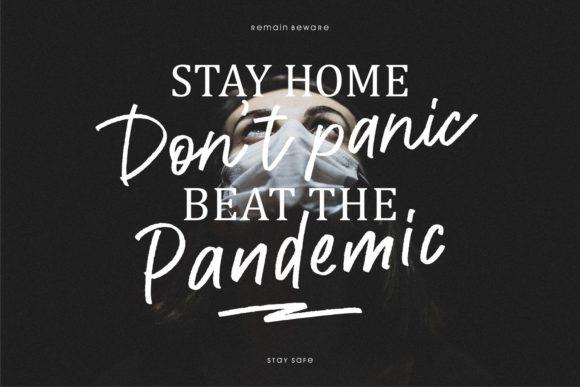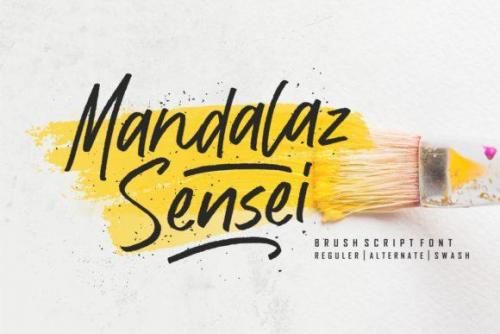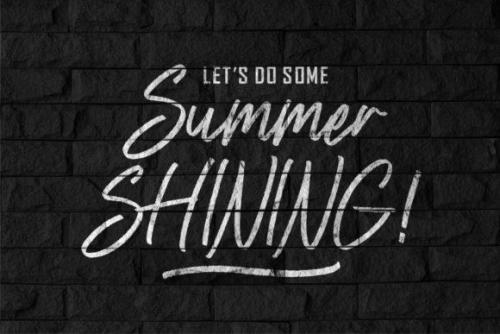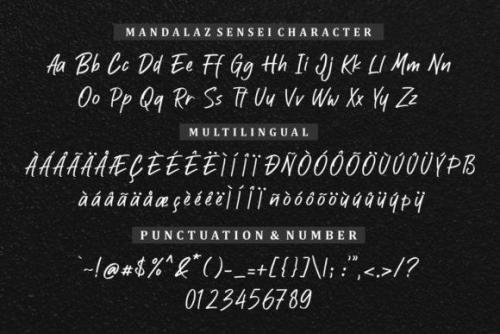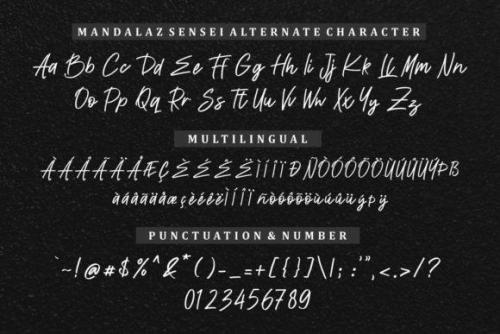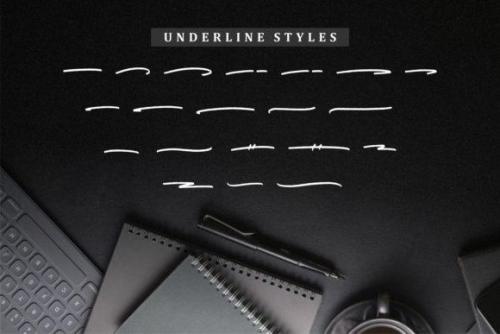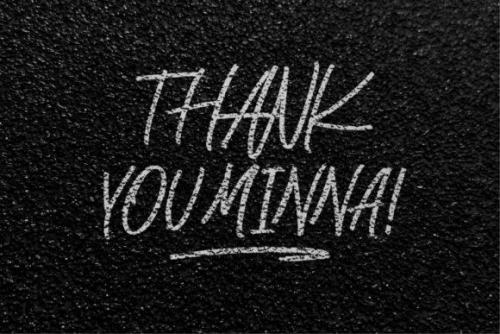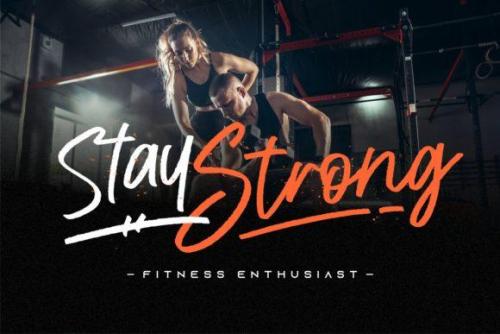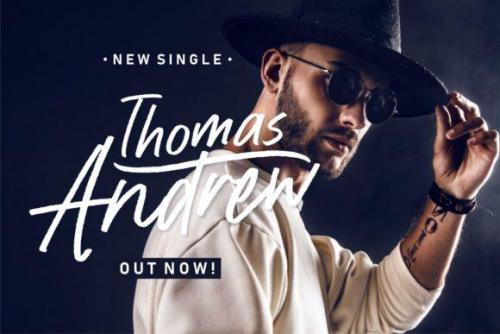
Mandalaz Sensei is a brushed and urban styled handwritten font. This font reads as strong, confident, and dynamic and can add tons of nostalgic character to your designs.
Mandalaz Sensei is perfect for product packaging, branding project, megazine, social media, wedding, or just used to express words above the background.
- Designer: Allouse Studio